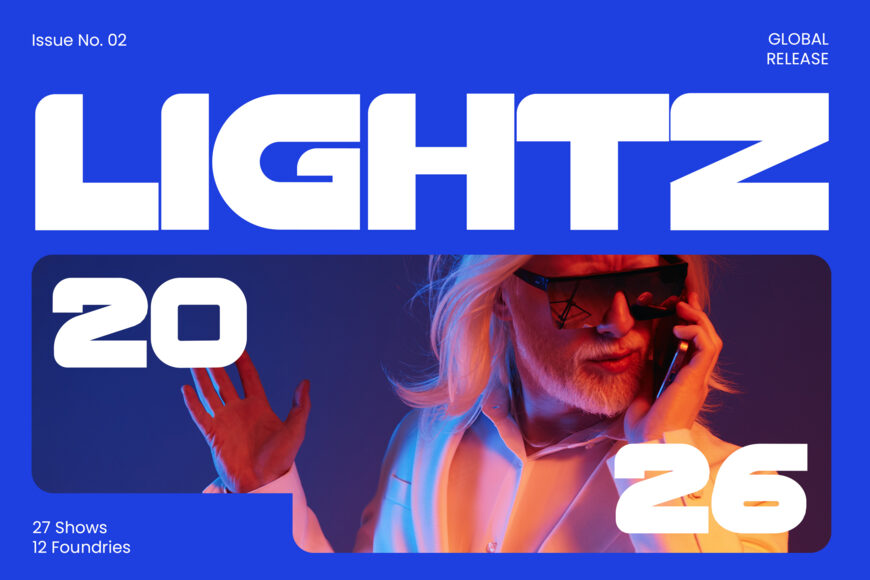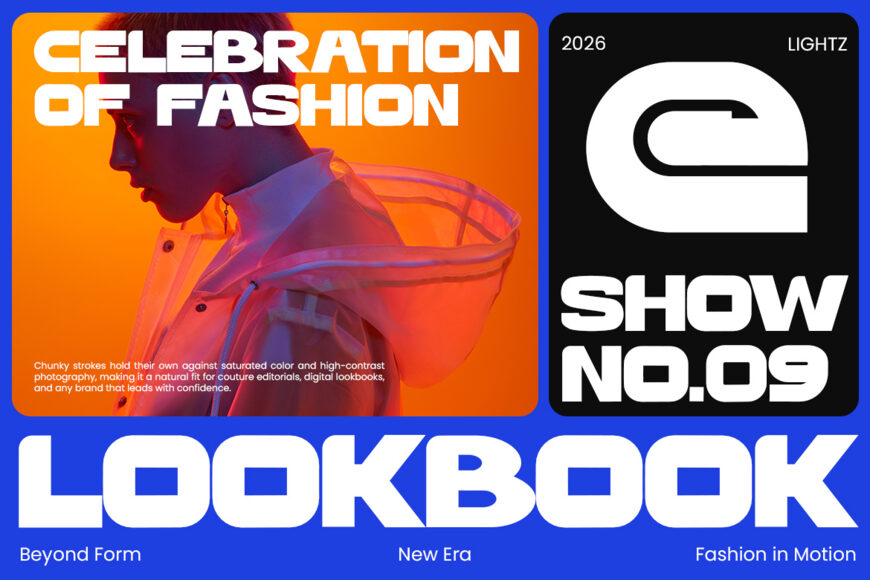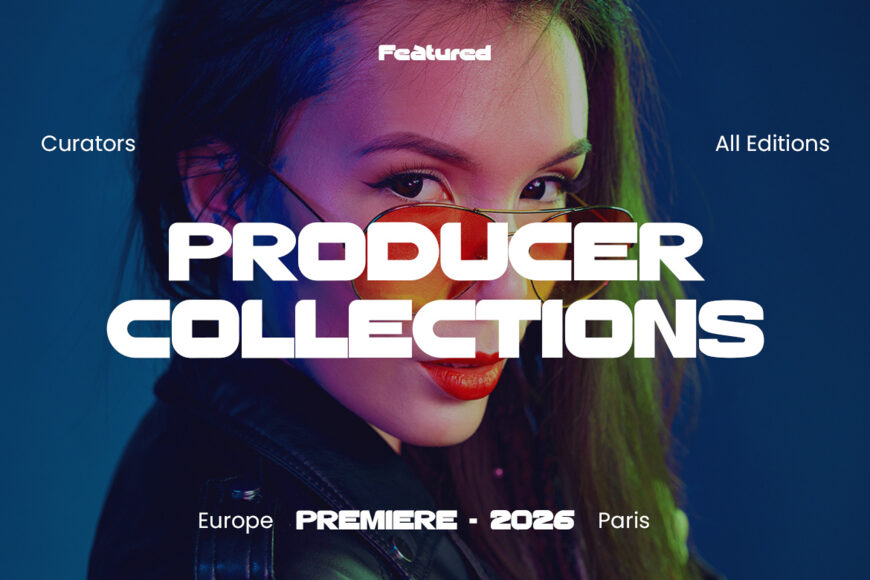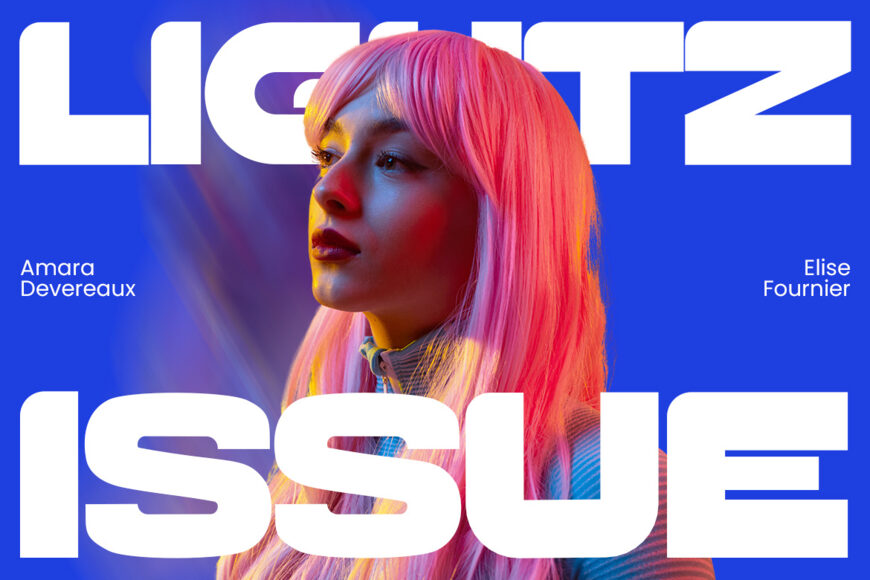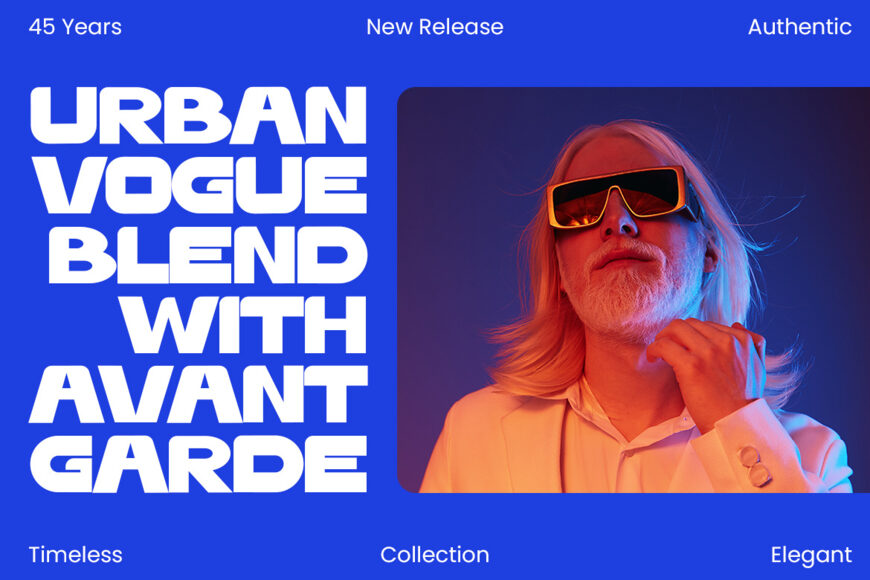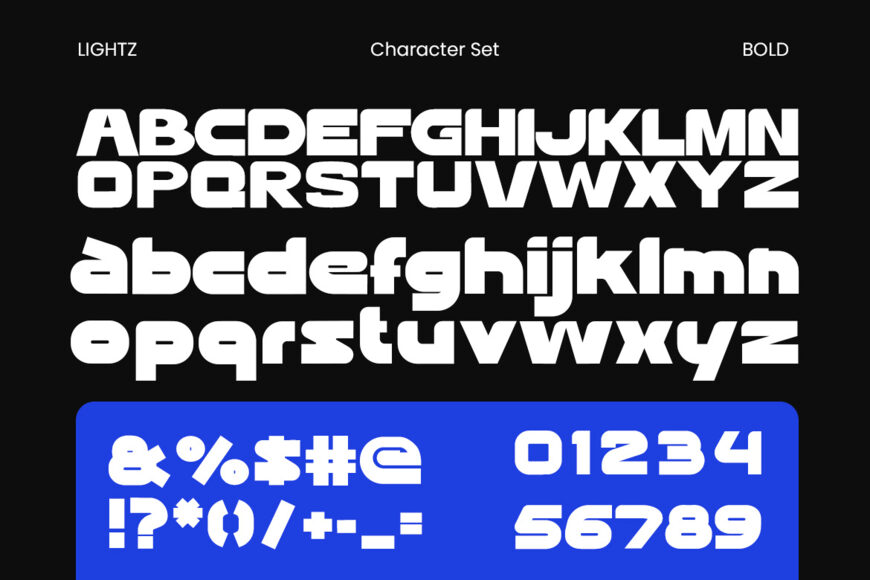
Lightz brings a sharp futuristic attitude to modern visuals through chunky geometric forms, compact proportions, and a powerful display presence. Unlike ordinary bold fonts, Lightz combines a clean structure with a tech-inspired personality, so every headline feels instantly stronger.
Its wide visual impact makes short words stand out, while the solid letterforms remain clear across posters, screens, and social media graphics. At the same time, its contemporary character pairs naturally with photography, gradients, neon colors, and high-contrast layouts.